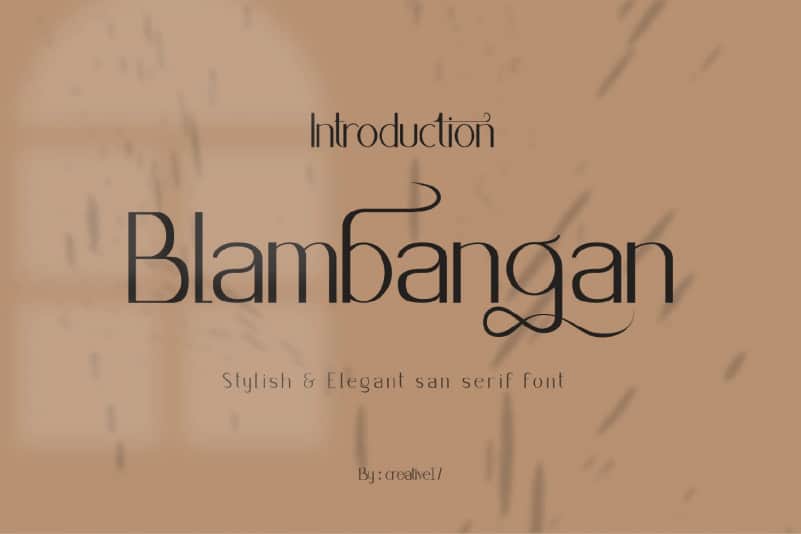
Blambangan Sans Serif Font is an elegant and modern sans serif with upper and lowercase is complemented by some of the same alternatives made with love. This font is perfect for large and small projects, such as branding, wedding invitation cards, logotypes and perhaps other design projects. This font blambangan includes a complete set, uppercase, lowercase, numeral, punctuation, multilingual support and another ligature and alternative letters.